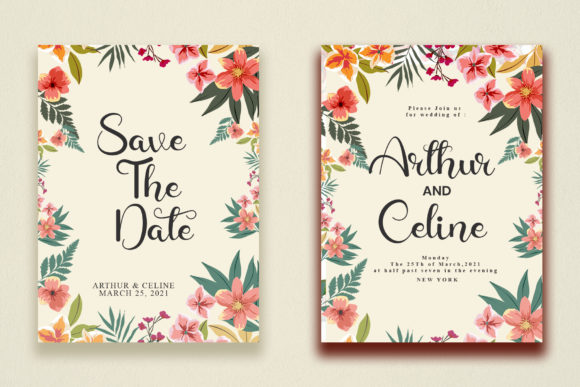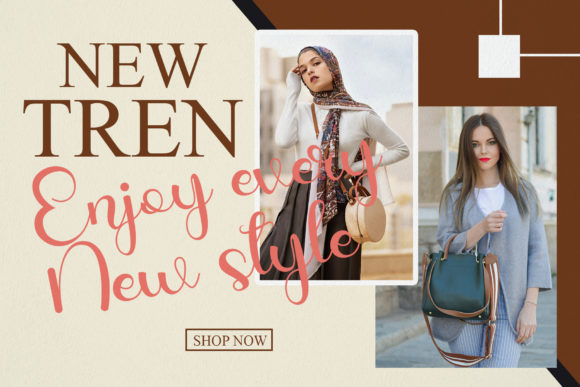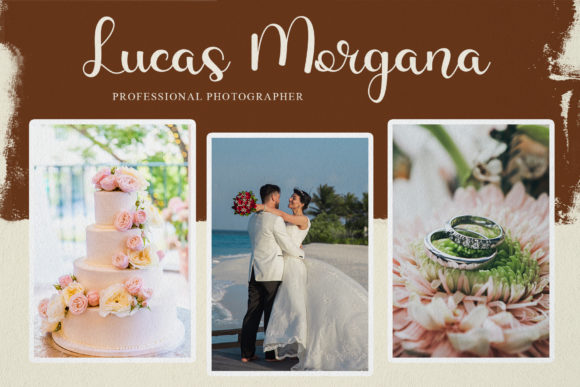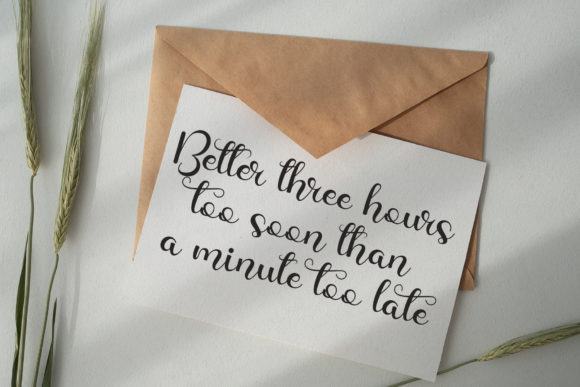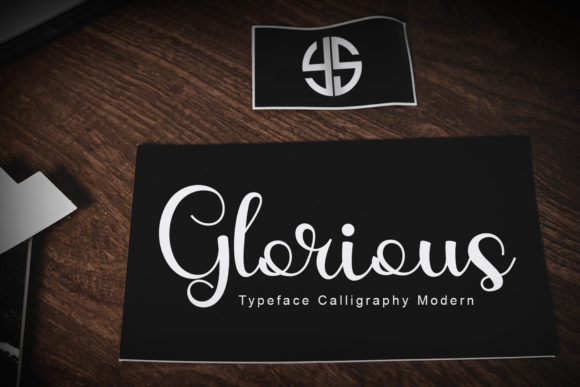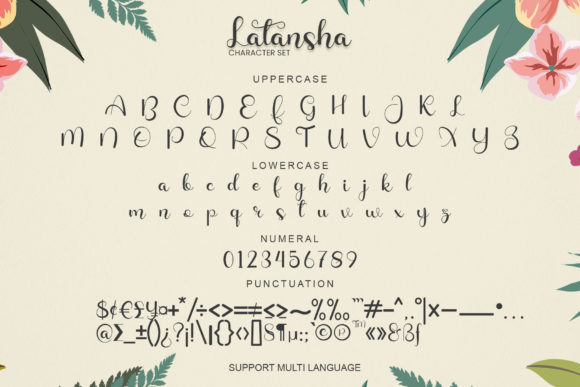
Latansha Font Font – Free Download
Introduction to Latansha Font Font
Fonts play a crucial role in design, and the Latansha Font font is a typeface that brings both character and versatility to any project. Whether you’re working on a branding project, a website, or a print design, the Latansha Font font offers a unique style that can elevate your work.
| 📌 Font Name | Latansha Font |
| 👤 Author | YanStudio |
Latansha is a romantic and sweet calligraphy typeface with characters that dance along the baseline.
Key Features of Latansha Font Font
Why Choose Latansha Font Font?
The Latansha Font font is more than just a typeface – it’s a design tool that helps you communicate your message with style and clarity. Its unique character set and versatile design make it suitable for a wide range of applications, from elegant invitations to bold headlines.
With its carefully crafted letterforms and balanced proportions, the Latansha Font font ensures readability and visual appeal across all mediums.
What makes Latansha Font font special?
The Latansha Font font stands out with its unique design, exceptional readability, and versatility across various design applications.